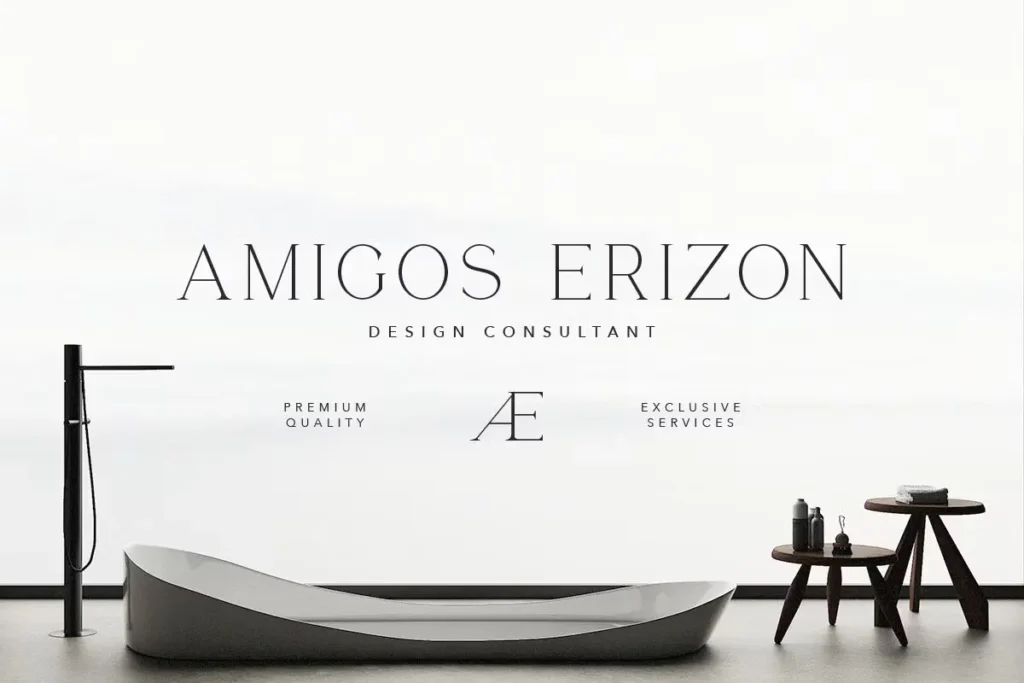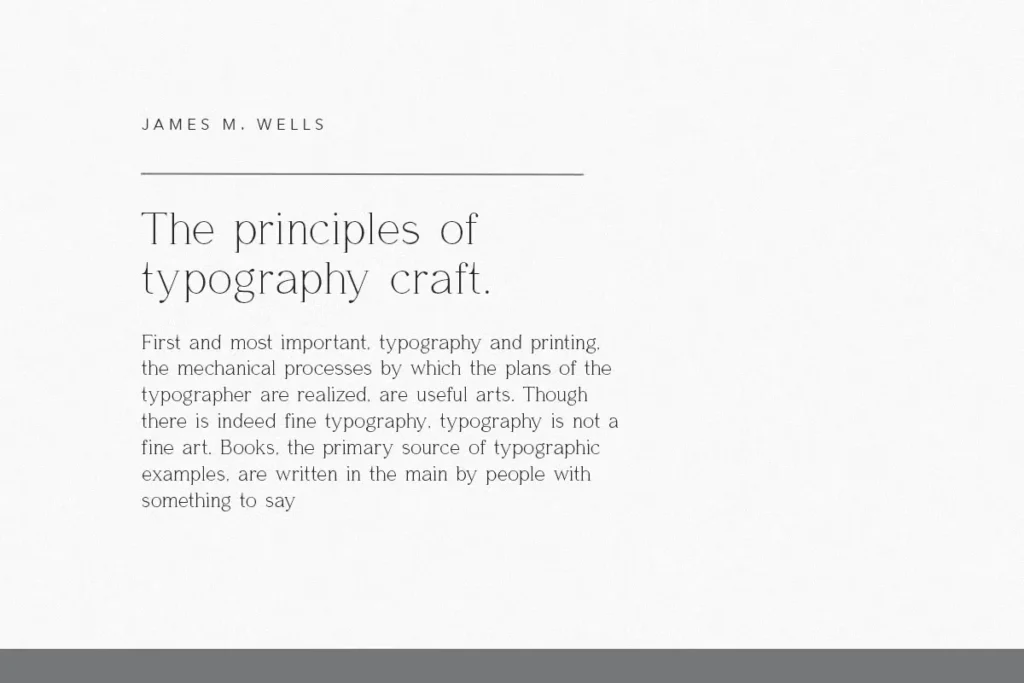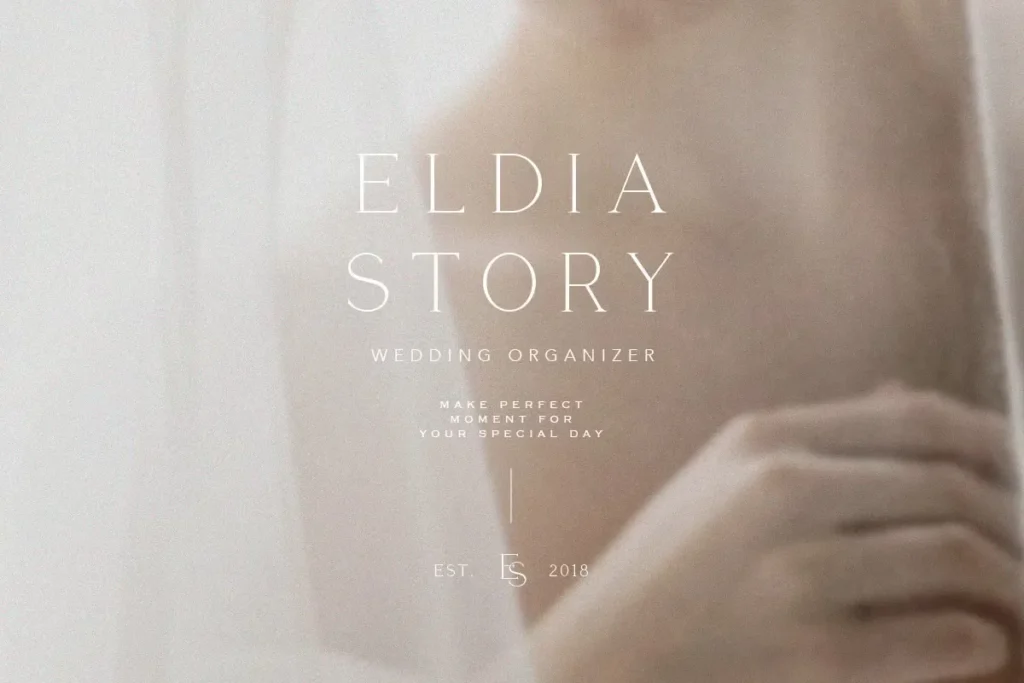
Kinta is a free authentic elegant serif font that blends modern sophistication with timeless style. Perfect for branding, editorial designs, logos, and high-end projects, Kinta offers a minimalist yet chic aesthetic. Its versatile character makes it suitable for both feminine and masculine designs, delivering a professional and stylish look for any creative work. Ideal for those seeking a beautiful and simple serif font with authentic charm.
Kinta Free Authentic Elegant Serif Font